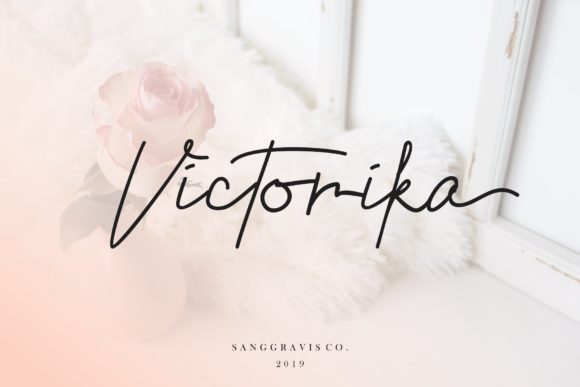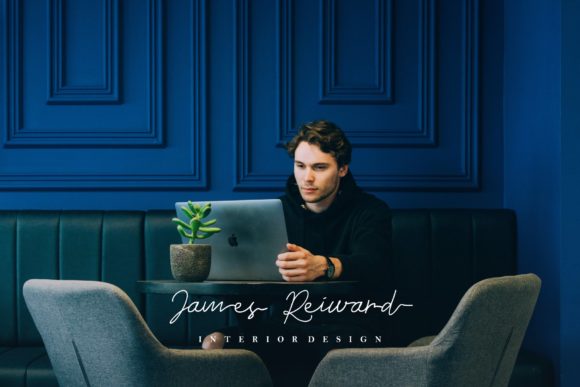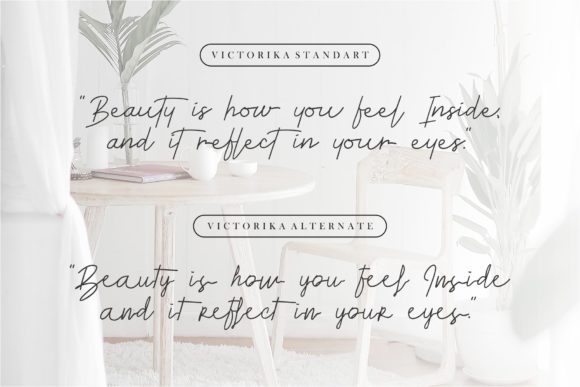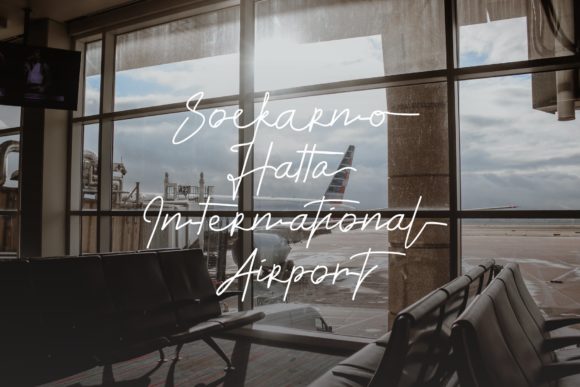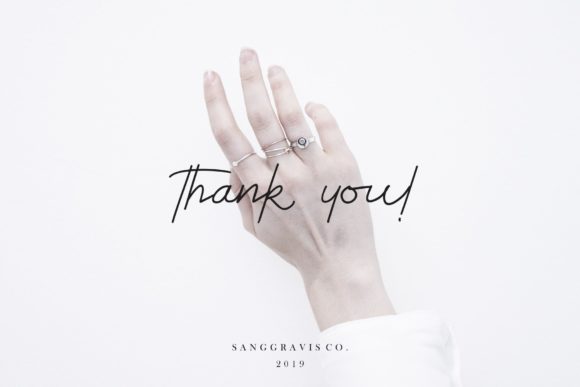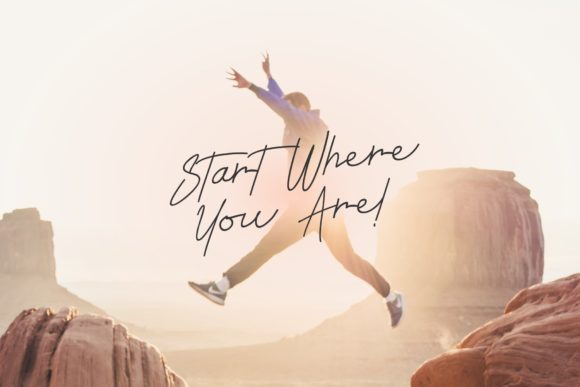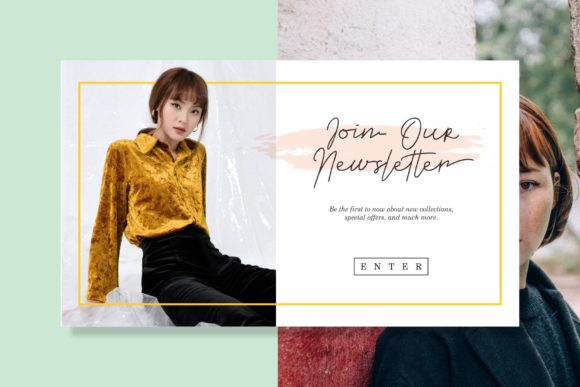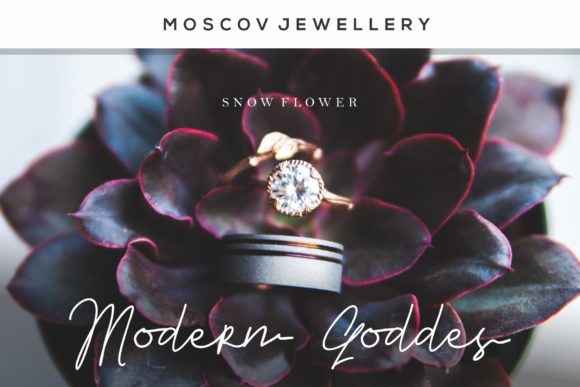
Victorika Font
About Victorika Font
The Victorika is an aesthetic script font. It includes detailed letters with an elegant and modern feel
It can be used for, watermarks, social media posts, advertisements, logos, poster titles, magazines, name tags, book titles, and every other design that needs a handwritten feel.